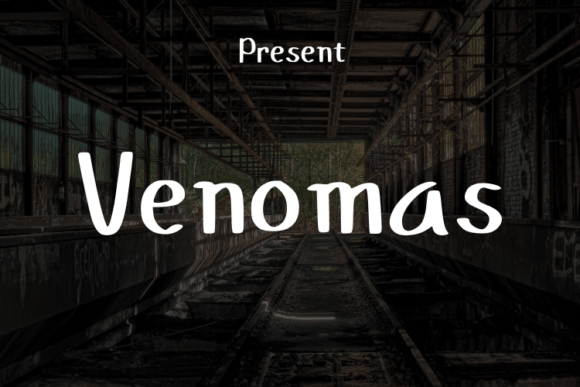
Indulge in the captivating world of Venomenas, where elegance and luxury converge. This exquisite script font, meticulously crafted by Eric Kusuma, will ignite your creativity. Each stroke of Venomenas embodies the essence of sophistication, making it the perfect choice for those who seek to make a statement.
Imagine your designs adorned with the captivating curves of Venomenas, transforming logos into emblems of grace and book and movie titles into cinematic masterpieces. Let fashion brands exude an aura of exclusivity, while magazines and clothing radiate a sense of timeless elegance. Quotes written in Venomenas become works of art, their messages amplified by the font's undeniable charm.
Venomenas is not merely a font; it's an invitation to elevate your designs to new heights. Its versatility knows no bounds, making it the perfect companion for a myriad of projects. Whether you're a seasoned designer or just starting your creative journey, Venomenas has the power to unleash your imagination. Add it to your font library today and experience the transformative power of its enchanting strokes.